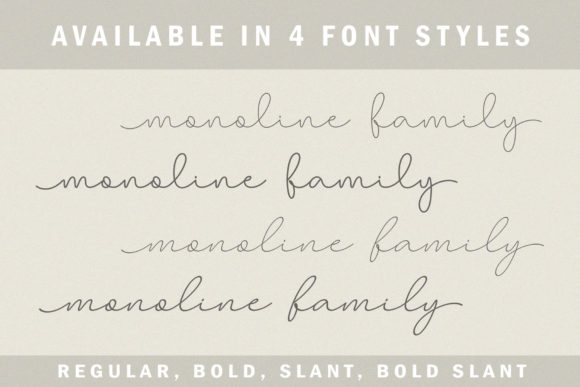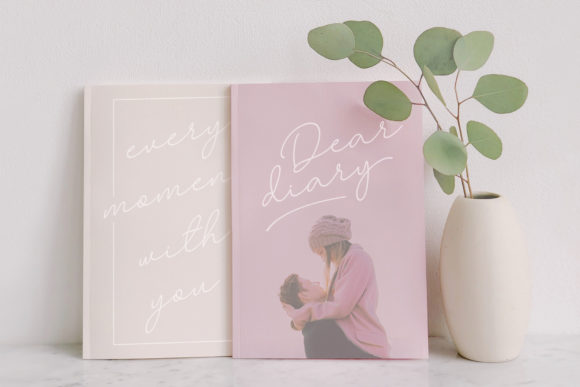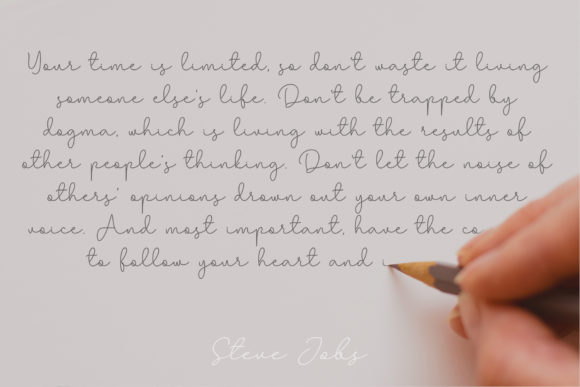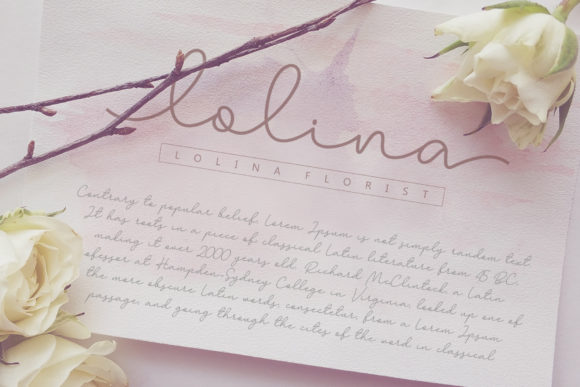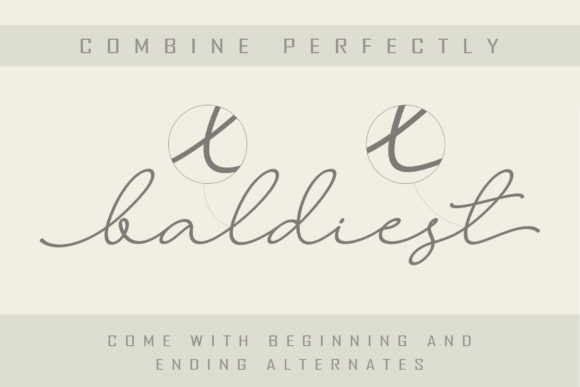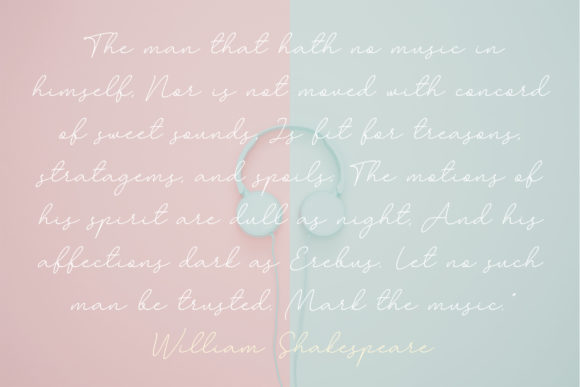
Introduction to Larianti Monoline Font
Have you ever found yourself scrolling through Pinterest, searching for the perfect design inspiration for your next creative project? You land on a beautifully crafted invitation, and you can’t help but feel a rush of excitement as you envision the same look for your own project. The delicate script, the elegant lines, and the romantic feel all come together to create a design that truly stands out. For designers looking to add a touch of whimsy and charm to their work, the Larianti Monoline Font is an absolute game-changer.
With its high-quality design and transparent background, this free download is a valuable resource for anyone looking to elevate their craft. Whether you’re a seasoned designer or just starting out, the Larianti Monoline Font is sure to become a trusted design resource that you’ll turn to again and again.
Key Features of Larianti Monoline Font
- Unique Monoline Design: Larianti Monoline Font boasts a distinctive monoline design, ideal for creative projects that require a touch of sophistication and elegance.
- High-Quality Font: This font is a high-quality design resource, suitable for a wide range of applications, from print to digital media.
- Transparent Background: The font features a transparent background, allowing for seamless integration with various design elements and backgrounds.
- Perfect for Creative Projects: Larianti Monoline Font is an excellent choice for designers working on creative projects that require a unique and stylish font.
Honest Review: Larianti Monoline Font
I recently came across the Larianti Monoline Font and I must say it’s a fantastic addition to any designer’s toolkit. As a creative professional, I appreciate high-quality design resources that make my job easier. This font is definitely one of them.
- ✨ Unique monoline design: The Larianti Monoline Font has a distinctive look that sets it apart from other fonts. Its smooth, connected lines make it perfect for creating a cohesive visual identity.
- ✨ High-quality typography: The font is well-designed and has a high level of detail, making it suitable for both digital and print projects.
One thing to note is that the font doesn’t have a transparent background, which might be a limitation for designers who work with layered files.
Overall, I’m impressed with the Larianti Monoline Font. It’s a versatile and stylish font that can elevate any creative project. If you’re looking for a high-quality design resource, I’d definitely recommend giving it a try.
Introduction to Larianti Monoline Font
Larianti Monoline Font is a high-quality design resource that offers a unique and modern aesthetic. It is a perfect addition to any creative project, providing a clean and minimalist look.
Tips for Getting the Most Out of Larianti Monoline Font
To get the most out of Larianti Monoline Font, use it with a transparent background to create a clean and minimalist look. You can also experiment with different font sizes and colors to add visual interest to your design.
Common Use Cases for Larianti Monoline Font
Larianti Monoline Font is perfect for a variety of design projects, including logos, brochures, business cards, and social media graphics. Its modern aesthetic makes it a great choice for creative professionals and hobbyists alike.